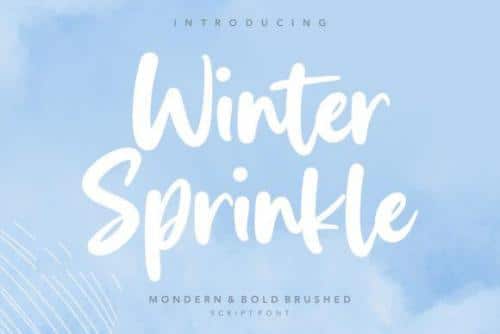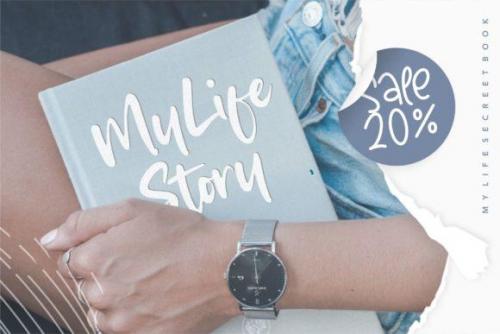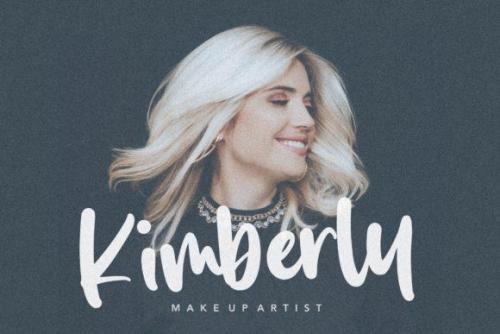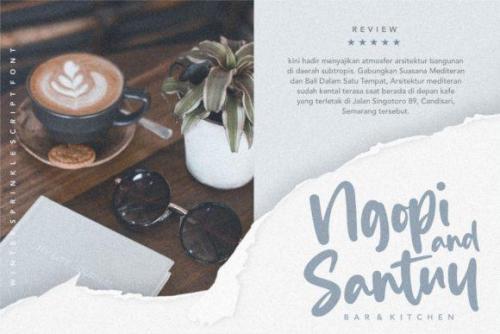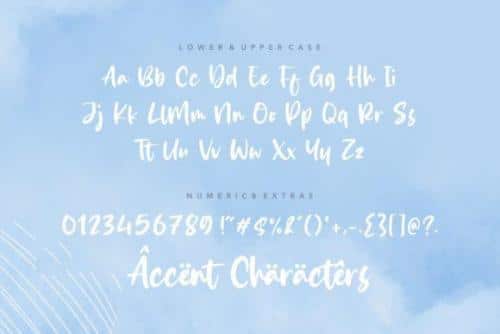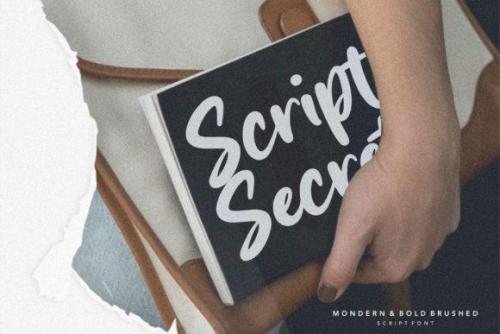
Winter Sprinkle Font is a neat and relaxed handwritten font. You can use it as a logo, badge, insignia, packaging, headline, poster, t-shirt/apparel, greeting card, and wedding invitation. Fancy and with a wonderful flow, this font will brighten up each of your design ideas!
- Designer: Letterative Studio